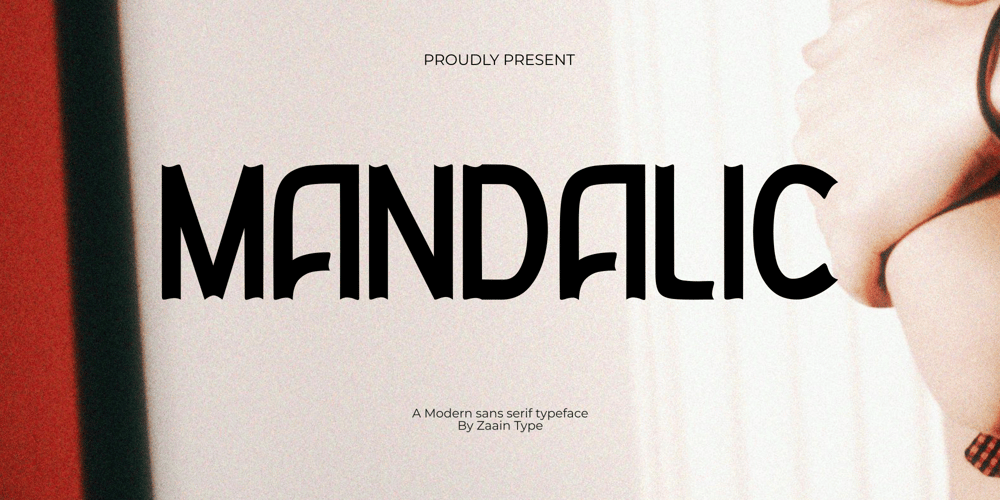
Mandalic
Mandalic font
Mandalic Font Family was designed by Ju Naen and published by Zaain Type. Mandalic contains 1 styles and family package options. Mandalic is a modern sans serif font that combines simplicity with contemporary elegance. Designed with smooth linearity and proportional shapes, this font offers a clean and professional look for your design projects. Its strong yet friendly characteristics make Mandalic ideal for branding, headlines, and editorial designs. Available in various weights and alternative uppercase styles, this font allows creative flexibility in usage. Perfect for a contemporary yet easily readable appearance, Mandalic is the ideal choice to enhance your visual identity